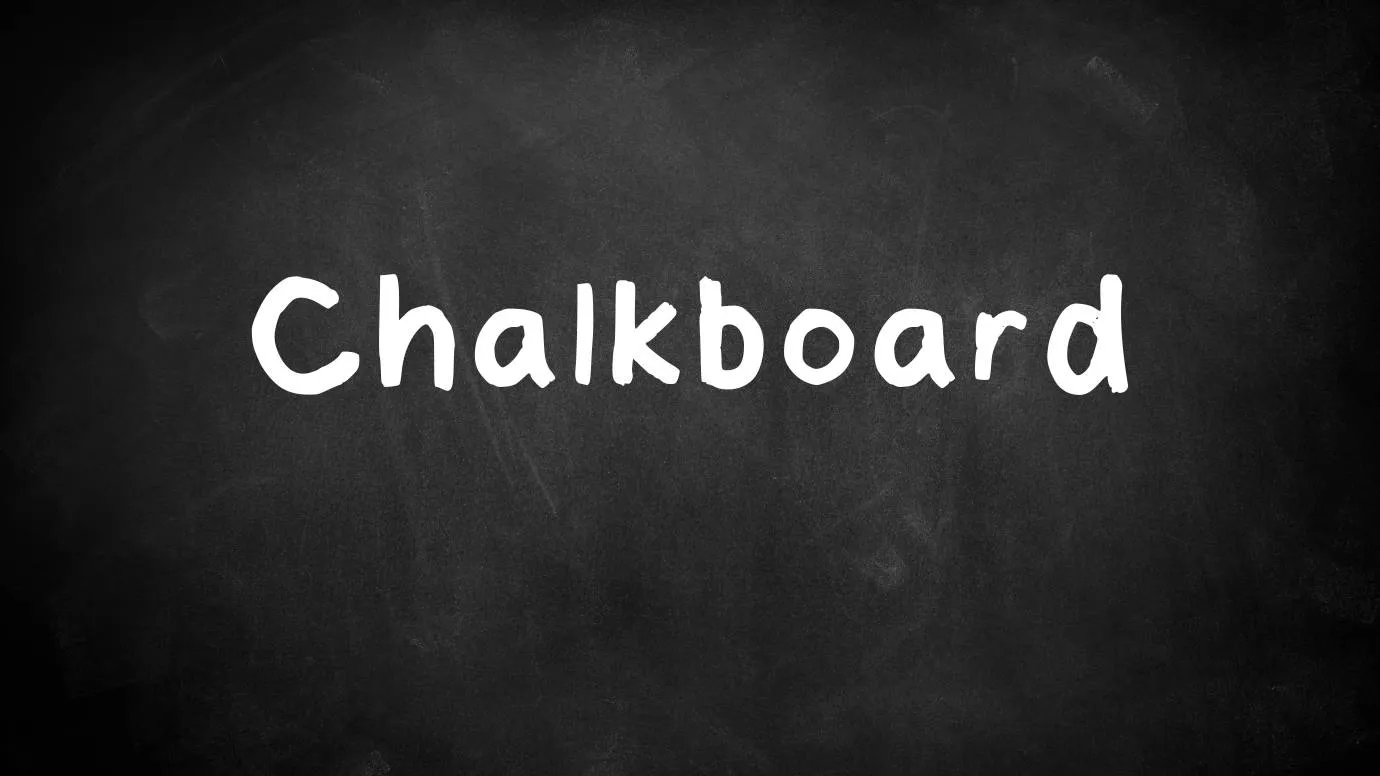
Chalkboard Font Family is a cohesive script handwritten typeface. This awesome texture was developed and then released by Apple Inc. This family of fonts was released in the year 2003 for the first time.
| Name | Chalkboard Font |
| Type | Script |
| Designer | Apple Inc. |
| Date Released | 2003 |